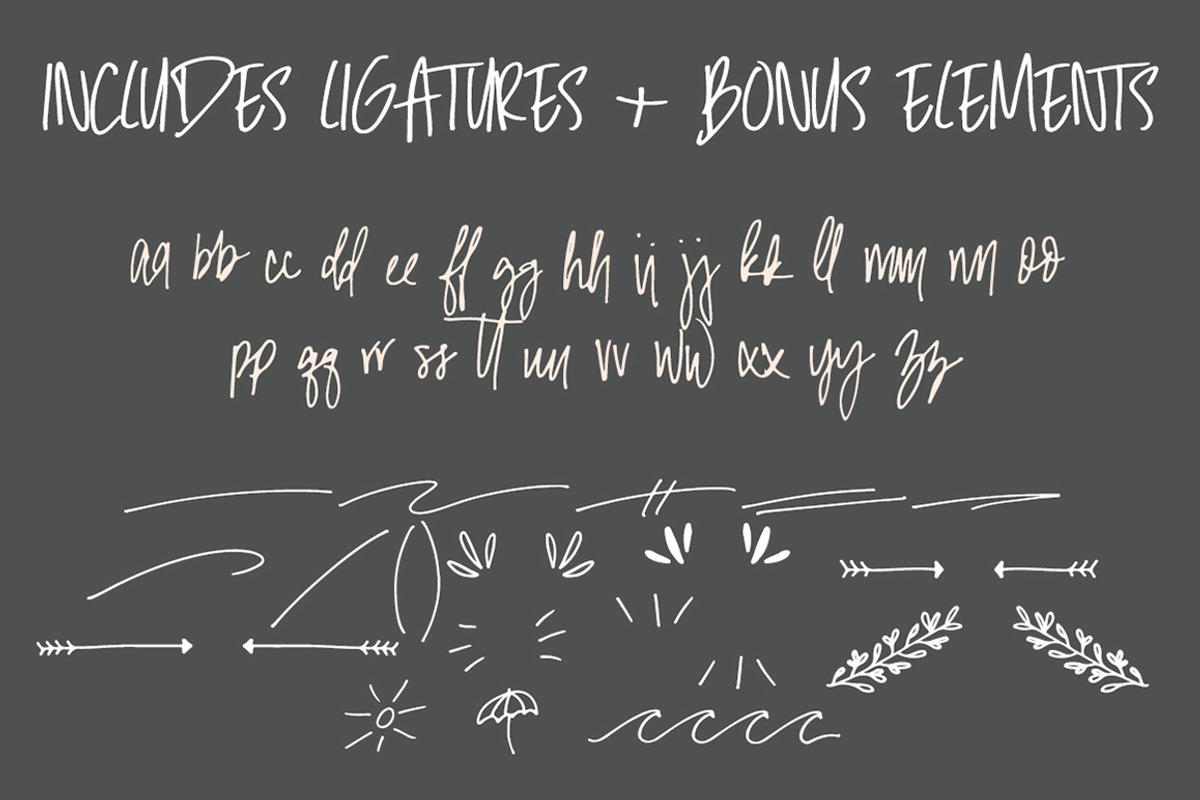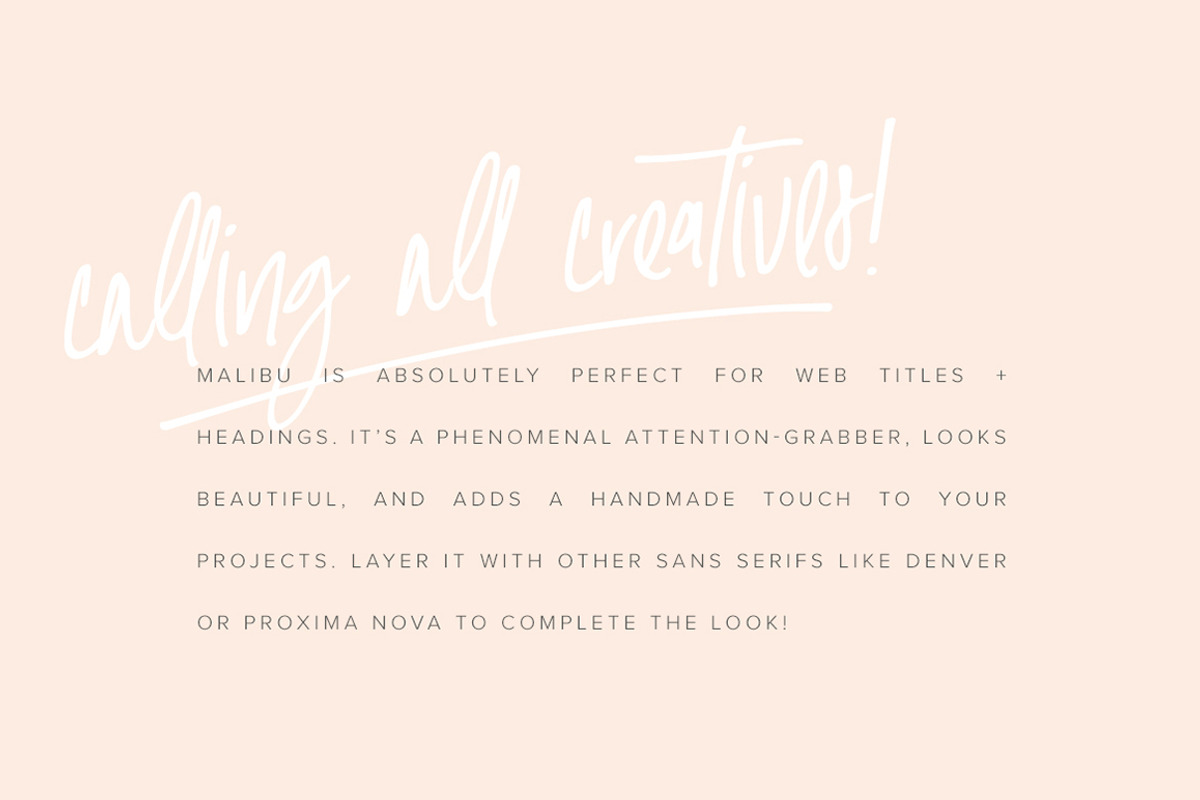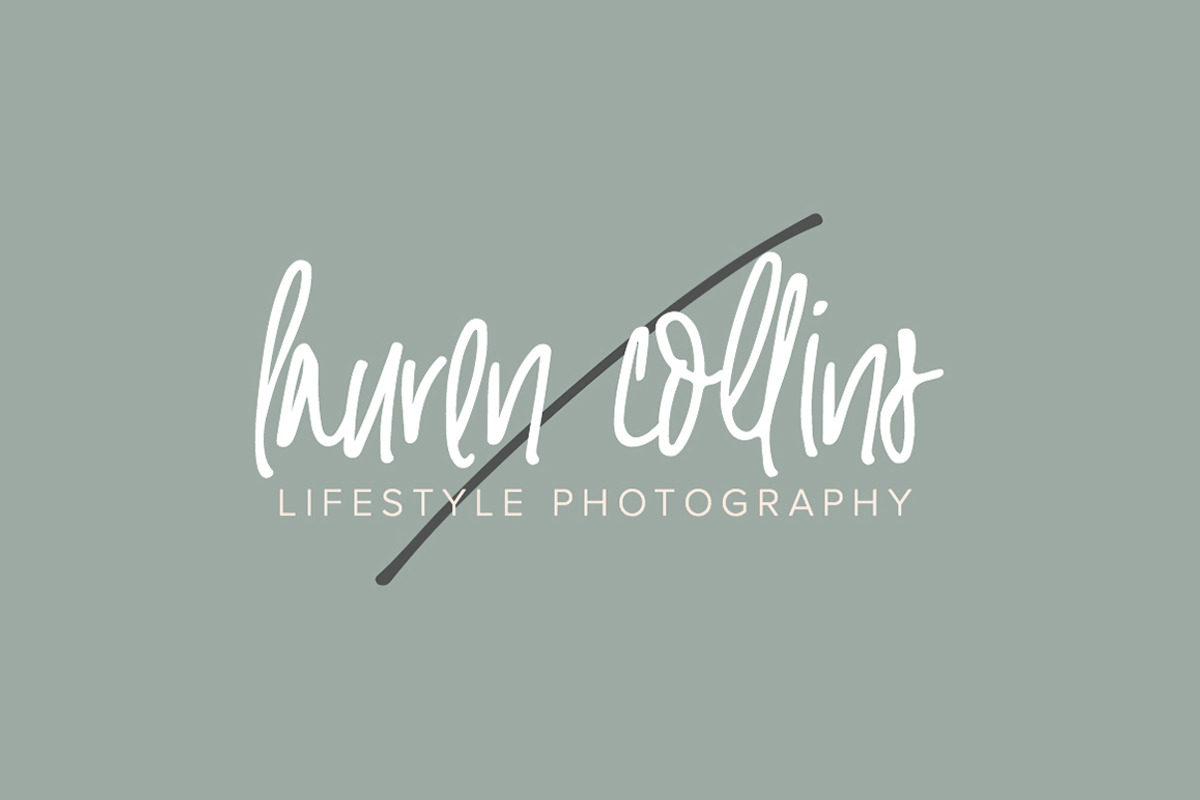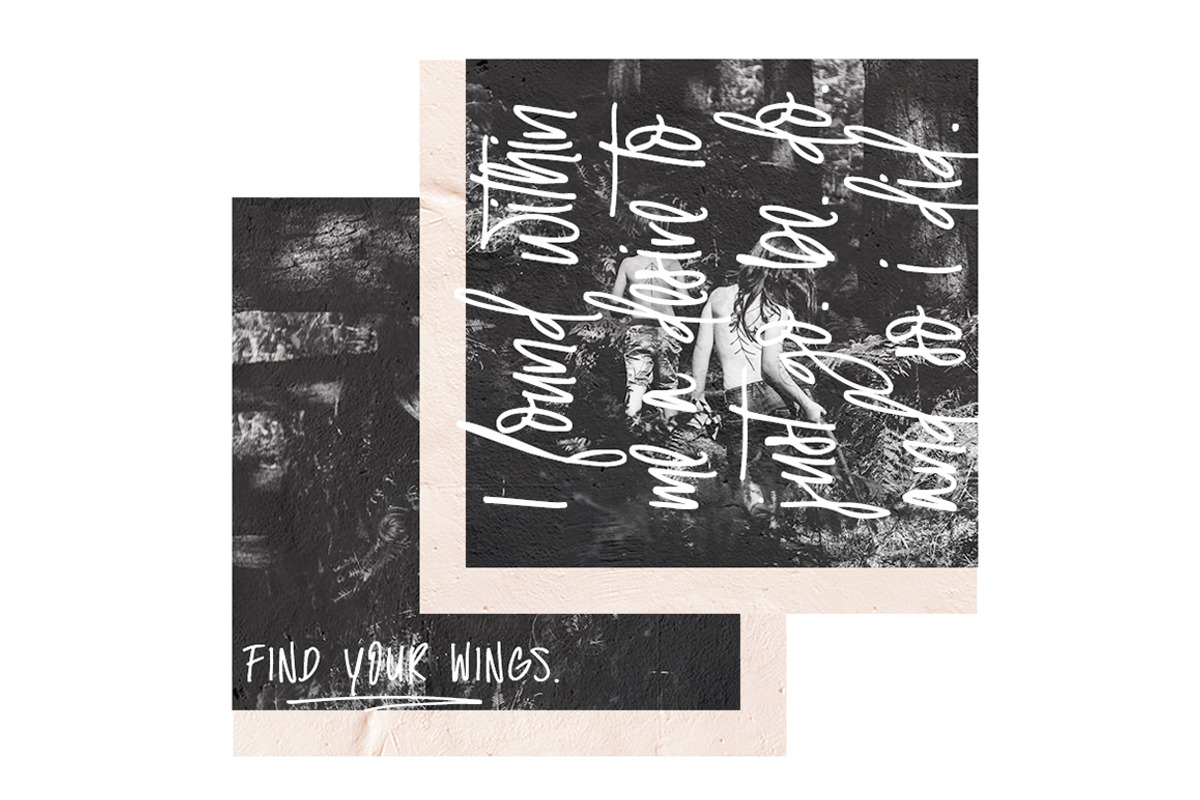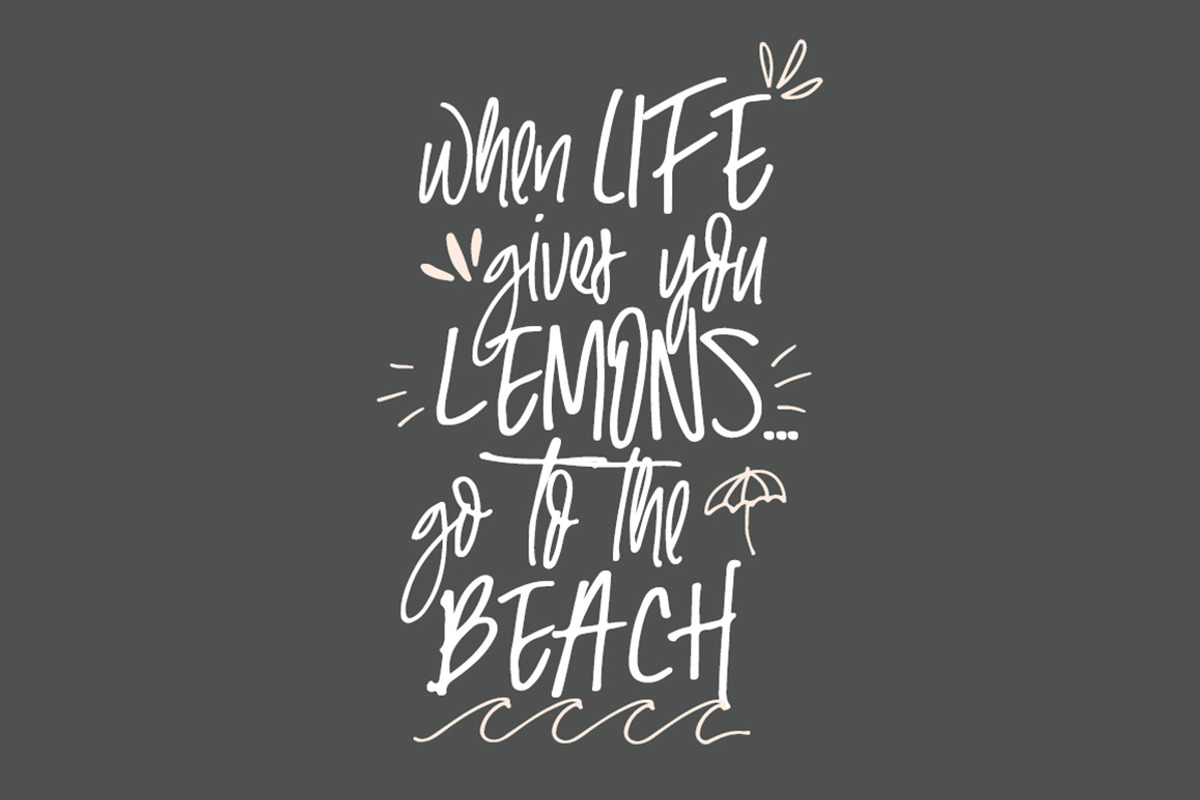
Malibu | A Handwritten Font
Malibu | A Handwritten Font by Jen Wagner Co is a font selected for branding, posters, packaging, typography.
Why Malibu | A Handwritten Font is worth a look
Malibu | A Handwritten Font by Jen Wagner Co fits naturally into Branding, posters, packaging, typography.